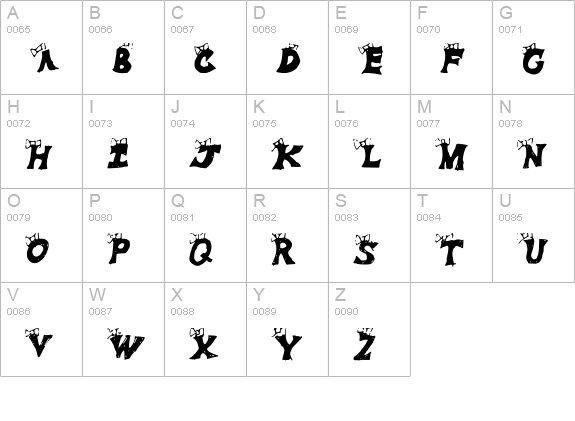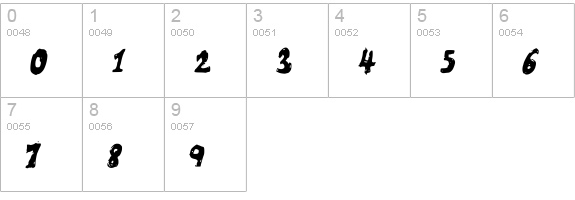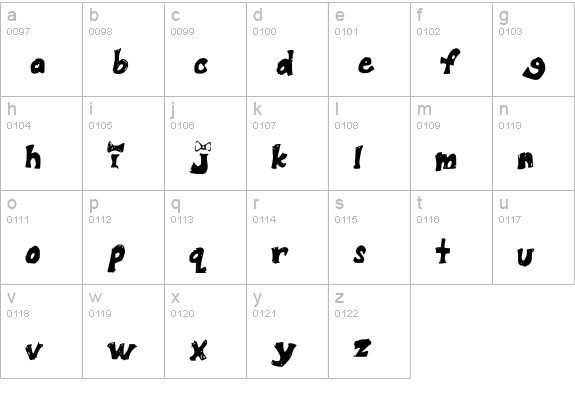
Ribbonbubble font is a whimsical and playful typeface that will add a touch of fun to any design project. With its rounded and bubbly letters, this font exudes a sense of joy and lightheartedness. It is perfect for creating eye-catching headlines, logos, or invitations that demand attention. The Ribbonbubble font is not only aesthetically pleasing but also incredibly versatile. Whether you are designing for a children's book, a birthday card, or a creative advertisement, this font will bring your ideas to life. Its unique design captures the essence of youthful energy and creativity, making it a standout choice for any project. And the best part? Ribbonbubble font is completely free! You can easily download it from FontsMarket.com, a trusted source for high-quality fonts. With just a few clicks, you'll have access to this delightful font that will surely make a lasting impression. So why wait? Embrace the playful charm of Ribbonbubble font and let your imagination run wild. Download it for free today and watch as your designs come to life with a touch of whimsy and joy.